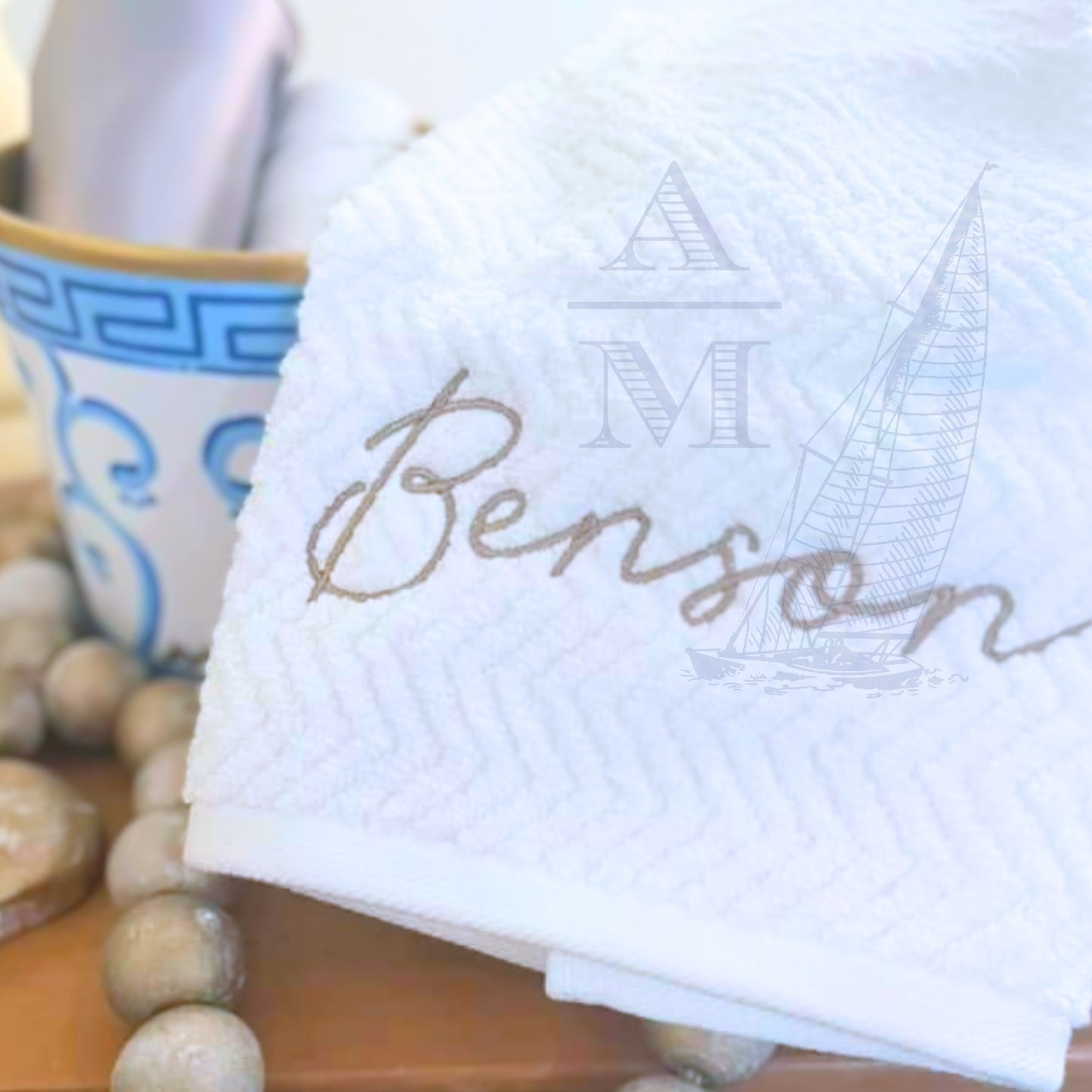
Breezie Embroidery Font for Machine Embroidery, including BX, Cursive Script Handwritten Style with Satin Finish, 2 Sizes, 3in & 4in
Introducing the Breezie embroidery font! This is a gorgeous satin finish font in a cursive, handwritten style that is perfect for any project. If you have been hunting for the perfect script font you have seen on your favorite designer towels, this is IT! This listing includes 2 sizes, 3" and 4". Upper and lower case, numbers and common punctuation. For best results, please use this font with embroidery software like Embrilliance.